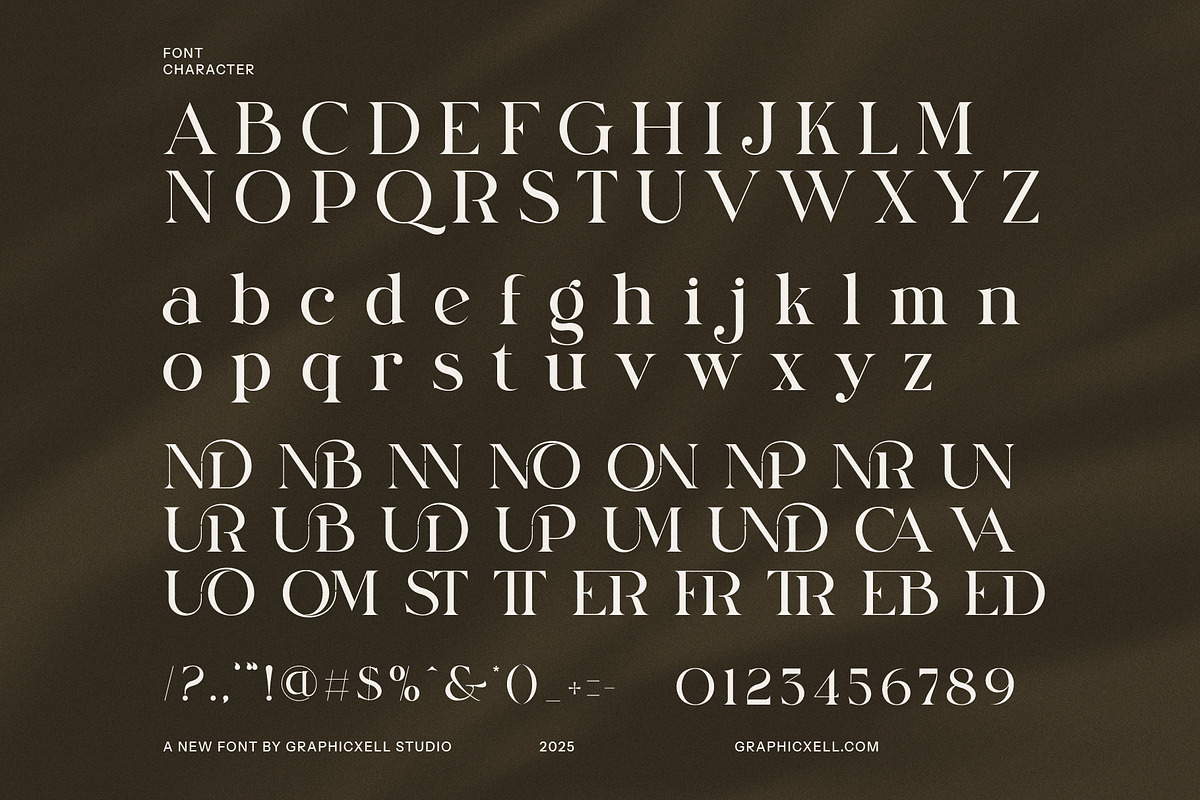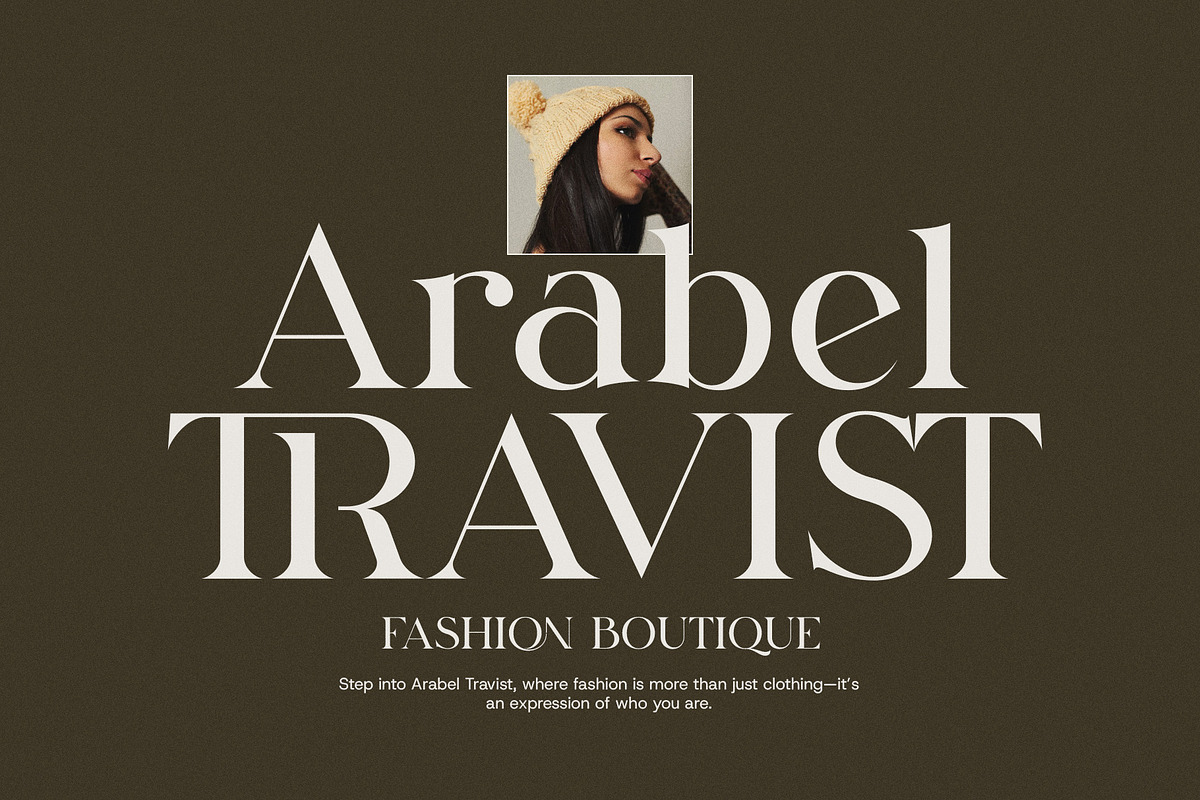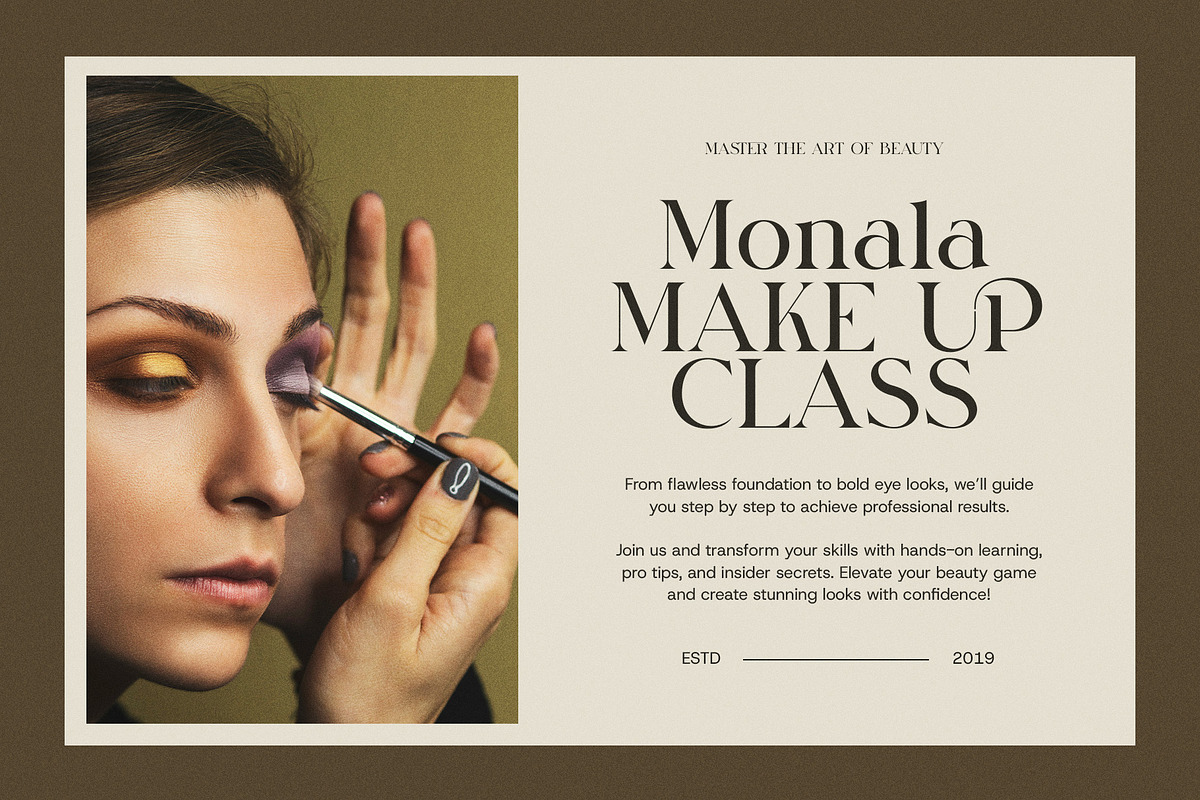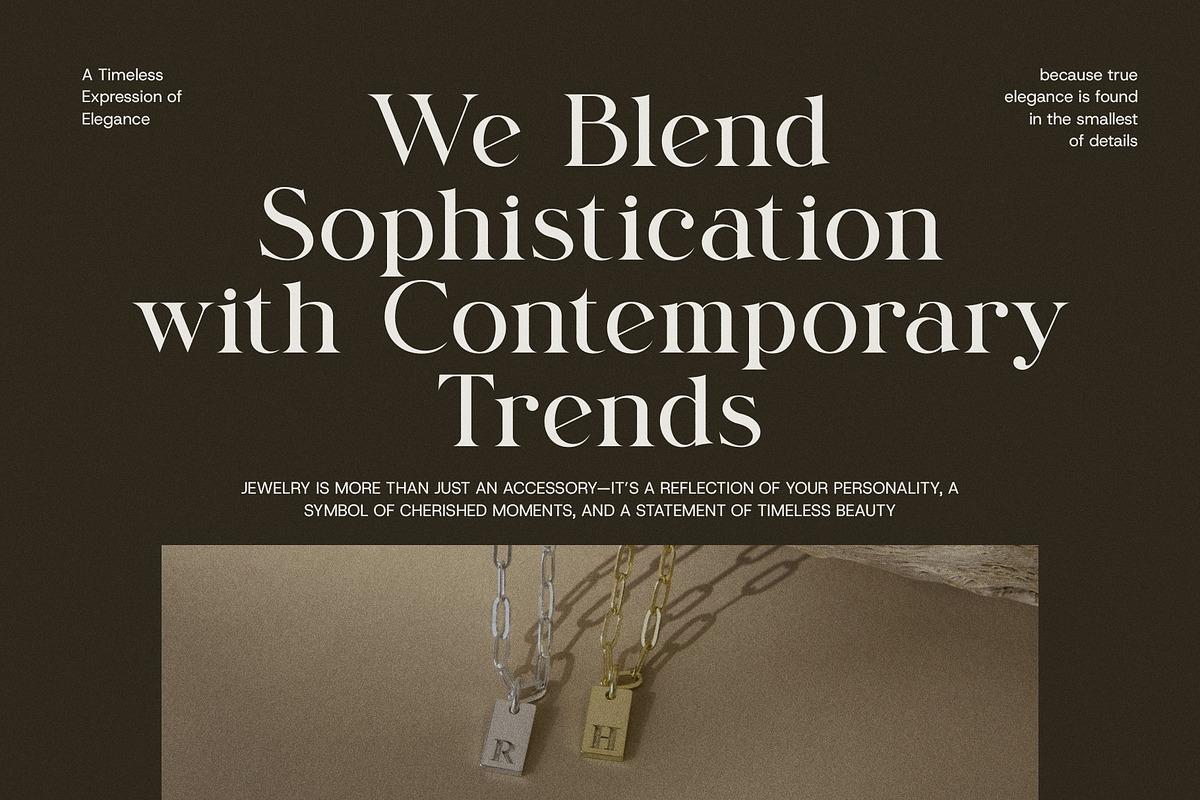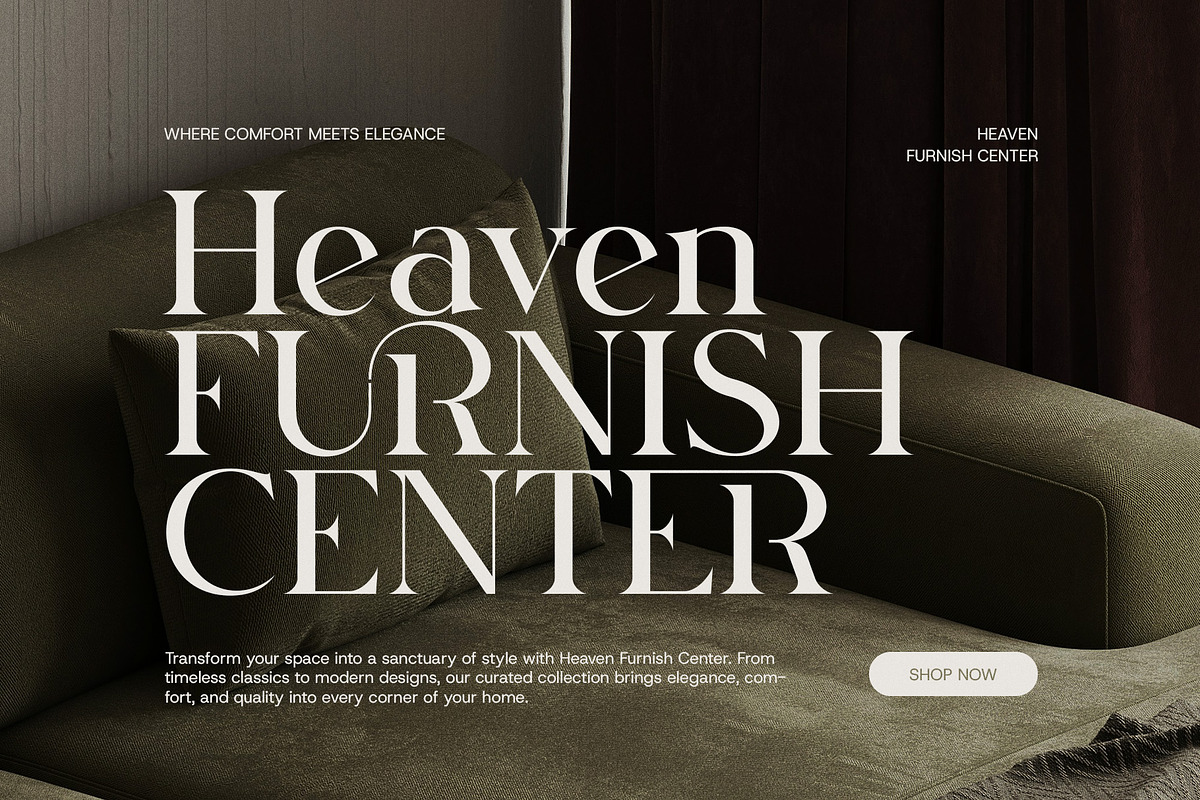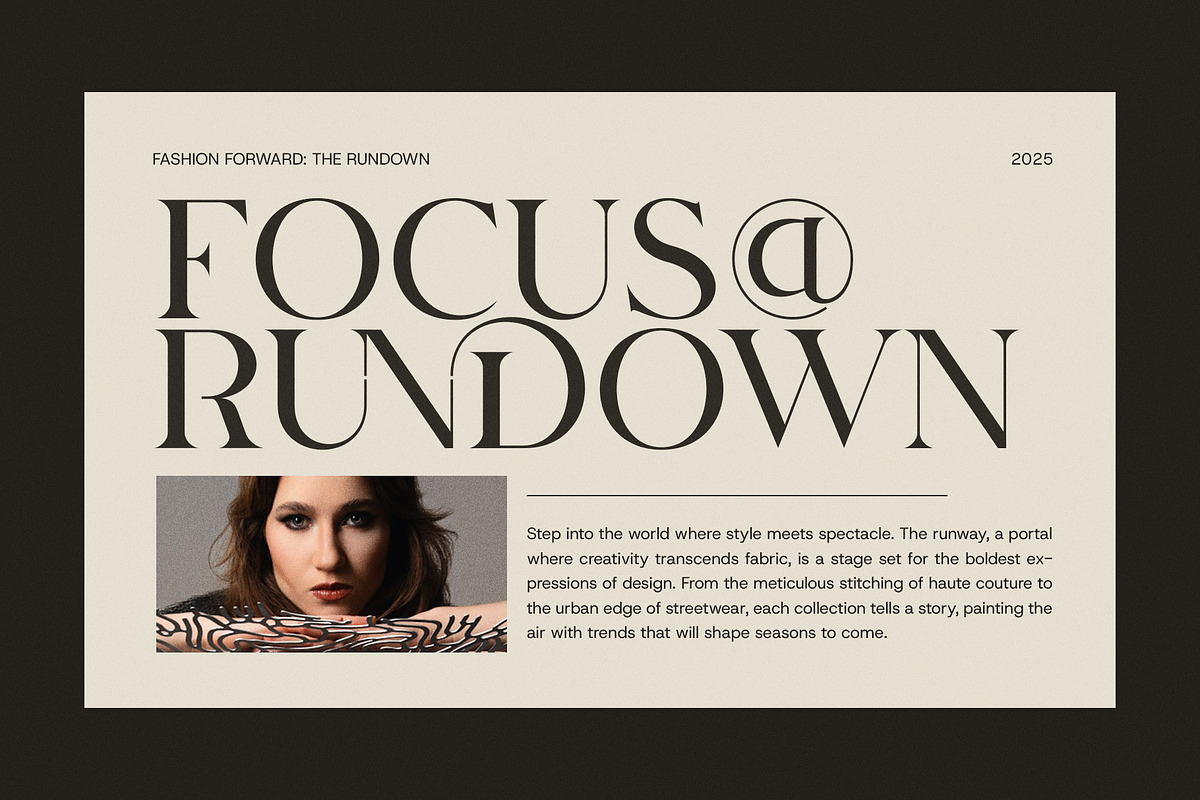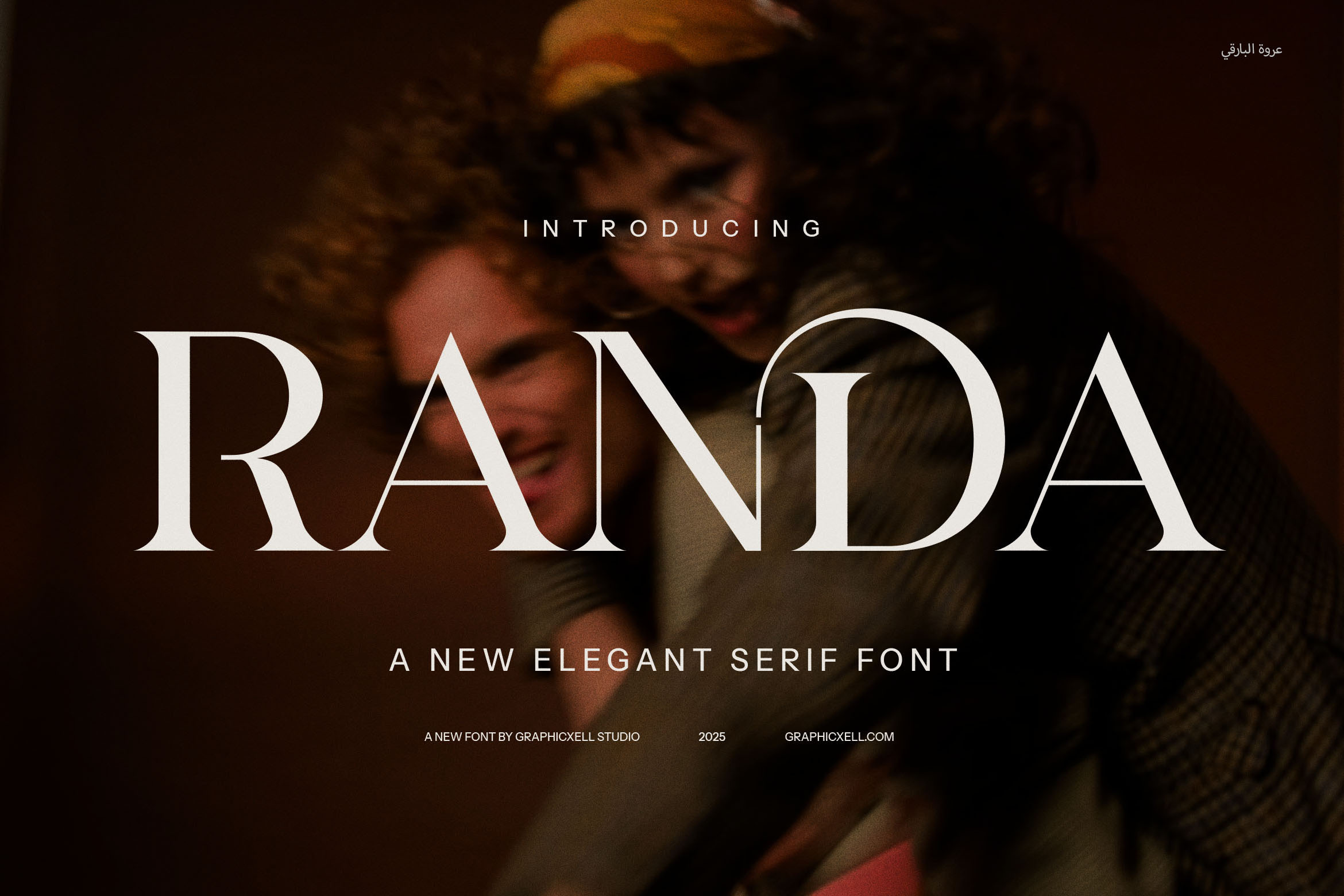
Randa Elegant Serif Font Typeface
Introducing Randa Elegant Serif Font Typeface – a stunning blend of modern sophistication and timeless elegance. With its graceful curves and sleek serifs, this font is designed to evoke a sense of luxury and class, making it an ideal choice for high-end projects targeting a refined audience. Whether you're creating an exclusive brand identity, an elegant logo, or sophisticated magazine layouts, Randa adds an unmistakable touch of refinement to your designs.
Randa’s unique character lies in its beautifully crafted ligatures, which enhance the overall fluidity and elegance of the typeface. These functional ligatures not only provide a harmonious look but also ensure that each letter connects effortlessly, adding an extra layer of visual appeal and refinement. This elegant feature makes Randa an exceptional choice for professional branding and design projects where style and legibility are equally important.
Perfectly suited for upscale women’s brands, fashion labels, and luxury products, Randa conveys an air of exclusivity and sophistication. Its versatility extends across various design platforms, from eye-catching logos to polished websites, chic product packaging, and sophisticated advertisements. Whether used in boutiques, restaurants, or premium services, this typeface ensures your message is communicated with elegance and style.
Randa’s timeless design makes it perfect for modern applications while preserving the elegance of classic typography. It’s a font that speaks of beauty, refinement, and strength, elevating your design projects to a new level of luxury. If you’re seeking a font that perfectly blends modern aesthetics with elegant functionality, Randa is the ultimate choice for creating designs that stand out with sophistication and grace. Let Randa redefine your visual storytelling, offering your brand a bold yet refined voice.